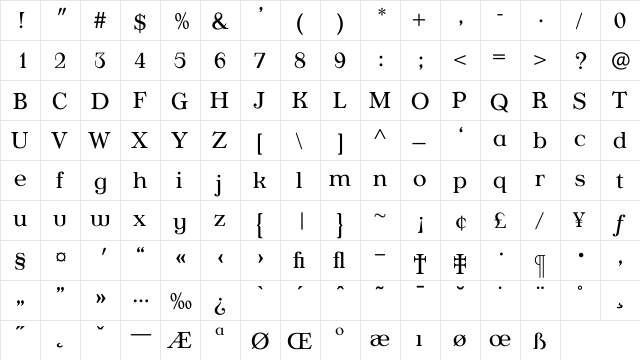
AppleyardLight Regular
Design Context for AppleyardLight Typeface
AppleyardLight offers clean, dependable letterforms without strong stylistic allegiance, making it a practical choice for designers who need flexibility. The delicate stroke weight brings airiness and refinement to layouts.
Pro Tip: Use AppleyardLight in both headline and body roles to test its range before committing to a single application.